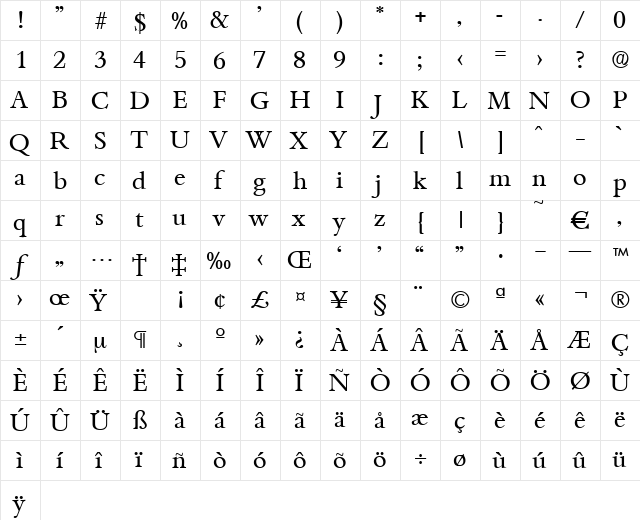
Bamberg-Regular Regular
Design Context for Bamberg-Regular Typeface
Bamberg-Regular offers clean, dependable letterforms without strong stylistic allegiance, making it a practical choice for designers who need flexibility.